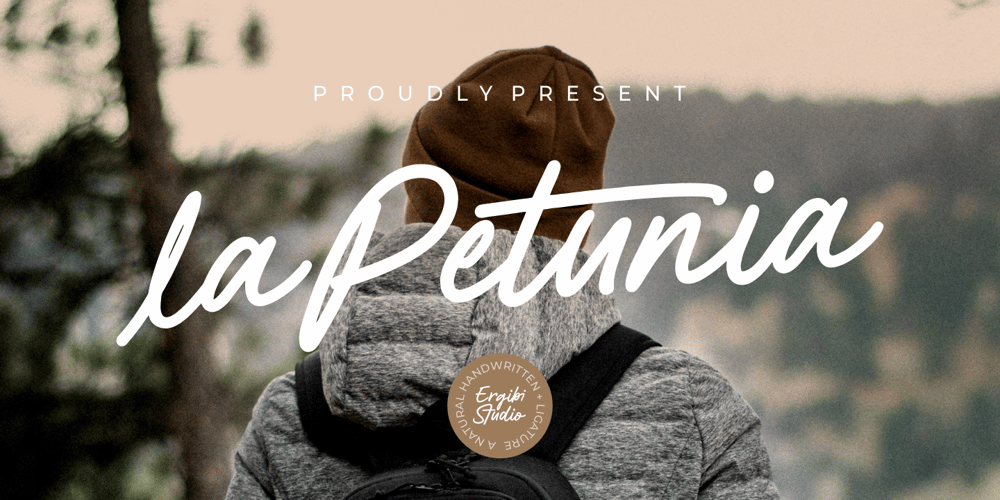
La Petunia Font Family was designed by Riyadh Rahman and published by Ergibi Studio. La Petunia contains 1 styles and family package options. This font “la Petunia” embodies the natural handwriting style, offering a personal and organic touch. Each stroke exudes softness, fluidity, and a natural flow, as if handwritten directly. Perfect for a variety of design needs such as invitations, journals, packaging, and creative projects that require a humanistic and authentic touch. This font combines the beauty and uniqueness of handwriting with the convenience of digital use.if you have any questions, don’t hesitate to contact usErgibi Studio